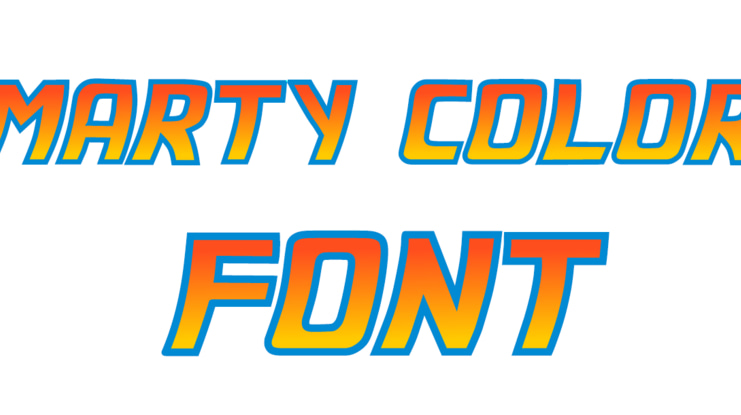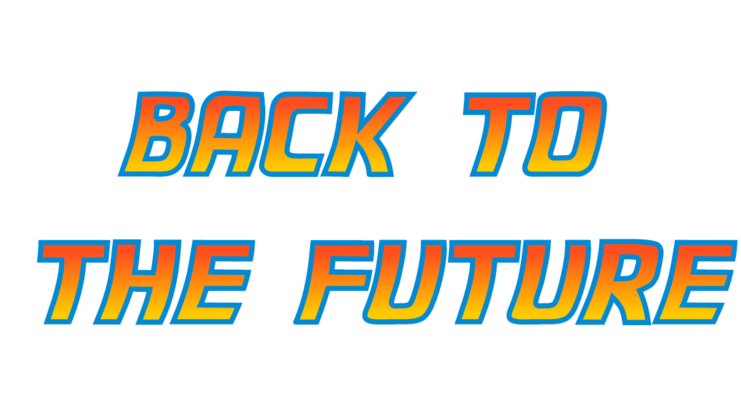
Marty - Back to the Future Font
Marty font is a spinoff of the Back to the Future 2002 Font. Marty is a color font and it will work in Photoshop, Illustrator..